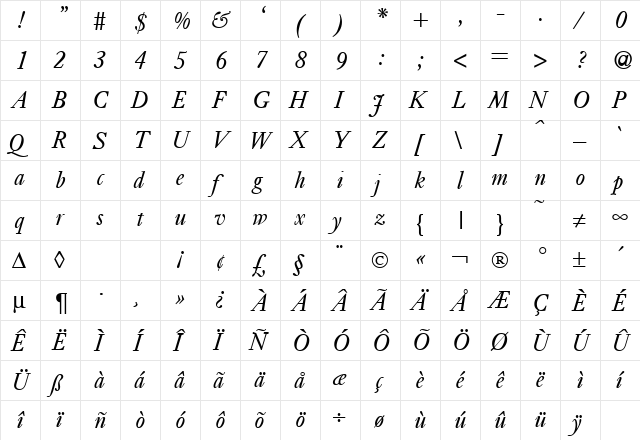
Ehrmann RegularItalic
Design Context for Ehrmann Typeface
Ehrmann is a composed and adaptable typeface that performs quietly and consistently across a wide range of design contexts. The dynamic lean of this cut emphasises speed and emphasis in any layout.
Pro Tip: Try Ehrmann for annotation and caption copy alongside an upright companion — the contrast in angle creates a dynamic but ordered typographic system.